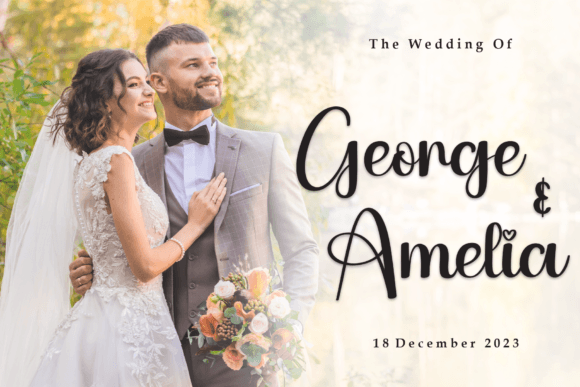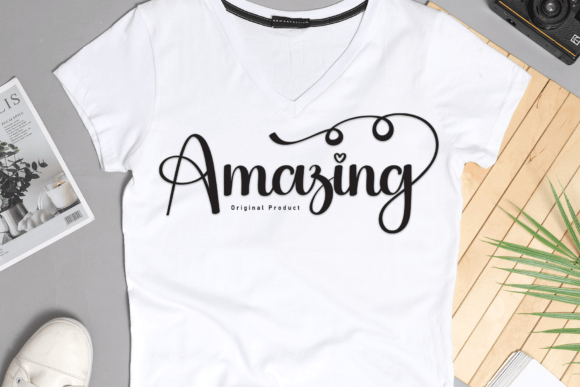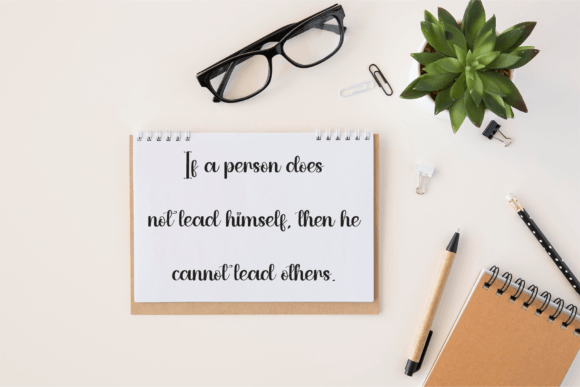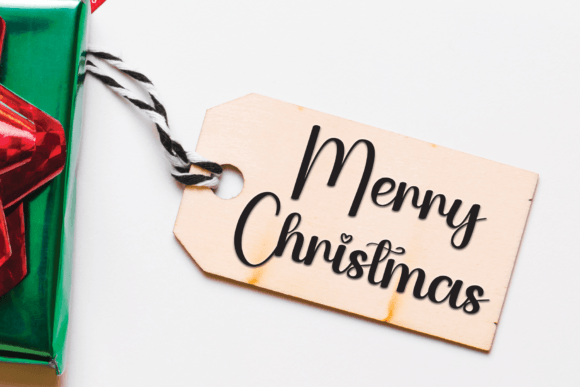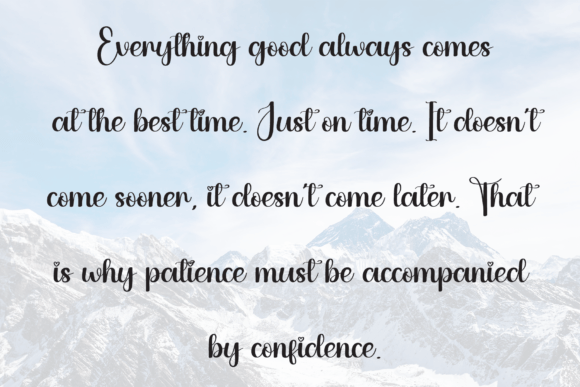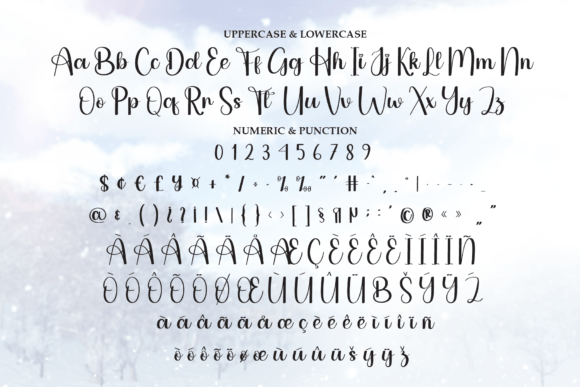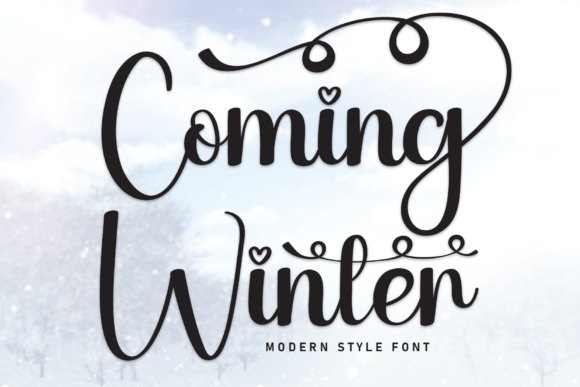
Introducing Coming Winter Font: The Sweet and Friendly Handwritten Font for Your Design Needs
Are you looking for a font that can add a touch of warmth and personality to your designs? Look no further than Coming Winter Font, a sweet and friendly handwritten font that’s perfect for a variety of creative projects. In this article, we’ll take a closer look at the features and benefits of Coming Winter Font, and explore how you can use it to elevate your designs.
What is Coming Winter Font?
Coming Winter Font is a beautiful, handwritten font that’s designed to bring a sense of joy and playfulness to your designs. With its sweet and friendly aesthetic, this font is ideal for writing wedding invitations, cards, or any other design that might need a lovely touch. Whether you’re a designer, crafter, or DIY enthusiast, Coming Winter Font is a versatile and charming choice that’s sure to delight.
Key Features of Coming Winter Font
So, what makes Coming Winter Font so special? Here are just a few of its key features:
- Cute and Versatile: Coming Winter Font is a beautifully designed font that’s both cute and versatile. Its sweet aesthetic makes it perfect for a variety of creative projects, from wedding invitations to DIY crafts.
- Handwritten Style: With its handwritten style, Coming Winter Font adds a personal touch to your designs. Its unique and imperfect lines give it a charming, homemade feel that’s sure to capture the hearts of your audience.
- Elegant and Whimsical: Coming Winter Font strikes the perfect balance between elegance and whimsy. Its flowing lines and delicate curves make it perfect for designs that require a touch of sophistication and playfulness.
Uses for Coming Winter Font
So, how can you use Coming Winter Font in your designs? Here are just a few ideas to get you started:
- Wedding Invitations: Coming Winter Font is a beautiful choice for wedding invitations. Its sweet and romantic aesthetic makes it perfect for couples who want to set the tone for a joyful and memorable celebration.
- Greeting Cards: Whether you’re designing birthday cards, Christmas cards, or get-well cards, Coming Winter Font is a great choice. Its friendly and approachable style makes it perfect for conveying warm and fuzzy feelings.
- DIY Crafts: Coming Winter Font is also a great choice for DIY crafters. Use it to add a personal touch to your scrapbooking, journaling, or other paper crafting projects.
- Branding and Packaging: If you’re looking for a font that can add a touch of personality to your brand, Coming Winter Font is a great choice. Its unique and memorable style makes it perfect for branding and packaging designs that need to stand out.
Tips for Using Coming Winter Font
Here are a few tips for using Coming Winter Font in your designs:
- Pair it with Other Fonts: Coming Winter Font pairs well with other fonts, especially sans-serif fonts. Try pairing it with a clean and modern font to create a beautiful contrast.
- Use it in Large and Small Sizes: Coming Winter Font looks great in both large and small sizes. Use it as a headline font or as a body font – it’s versatile and adaptable.
- Experiment with Colors: Coming Winter Font looks great in a variety of colors. Experiment with different color schemes to find the one that works best for your design.
In conclusion, Coming Winter Font is a sweet and friendly handwritten font that’s perfect for designers and crafters who want to add a touch of personality to their designs. With its cute and versatile aesthetic, this font is ideal for a variety of creative projects, from wedding invitations to DIY crafts. Whether you’re looking for a font that’s elegant and whimsical or playful and fun, Coming Winter Font is a great choice. So why not give it a try and see how it can elevate your designs?